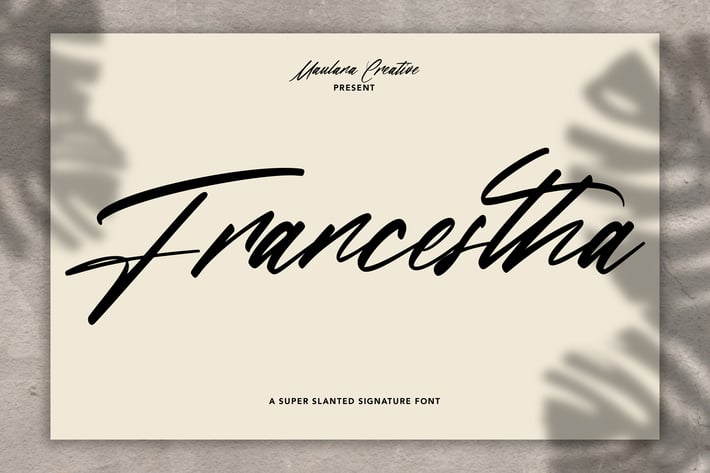
Francestha Super Slanted Signature Font
Give your designs an authentic handcrafted feel. Francestha Super Slanted Signature Font is perfectly suited to stationery, logos and much more.